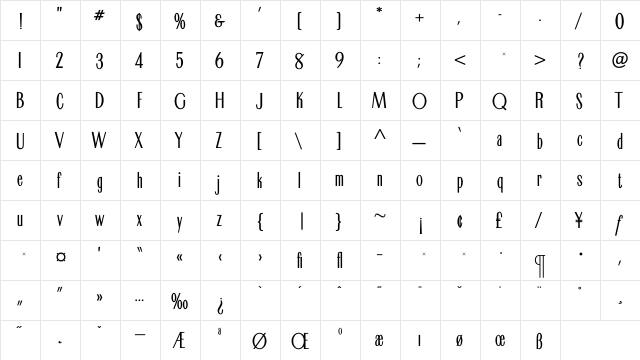
CameoHeavyline Regular
Design Context for CameoHeavyline Typeface
CameoHeavyline is a composed and adaptable typeface that performs quietly and consistently across a wide range of design contexts.
Pro Tip: Use CameoHeavyline in both headline and body roles to test its range before committing to a single application.